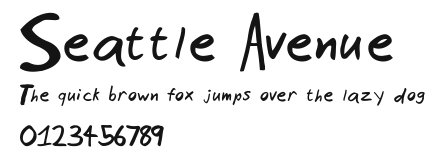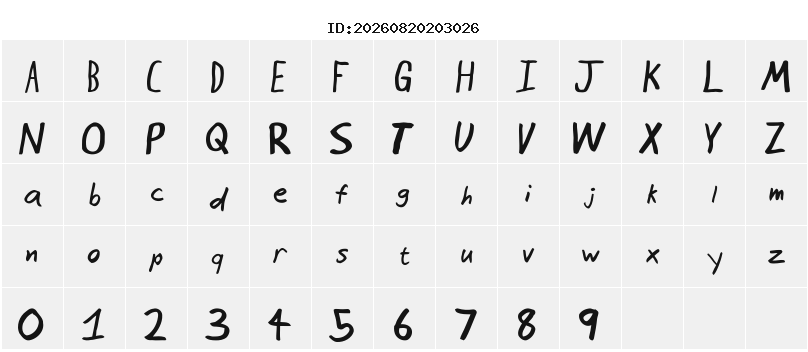
Seattle Avenue Preview
• Font Name: Seattle Avenue
• Full Font Name: Seattle Avenue
About Seattle Avenue.ttf
Seattle Avenue.ttf is a modern, elegant sans-serif font designed for ultimate readability and visual harmony. Perfect for branding, headlines, web design, and print materials.